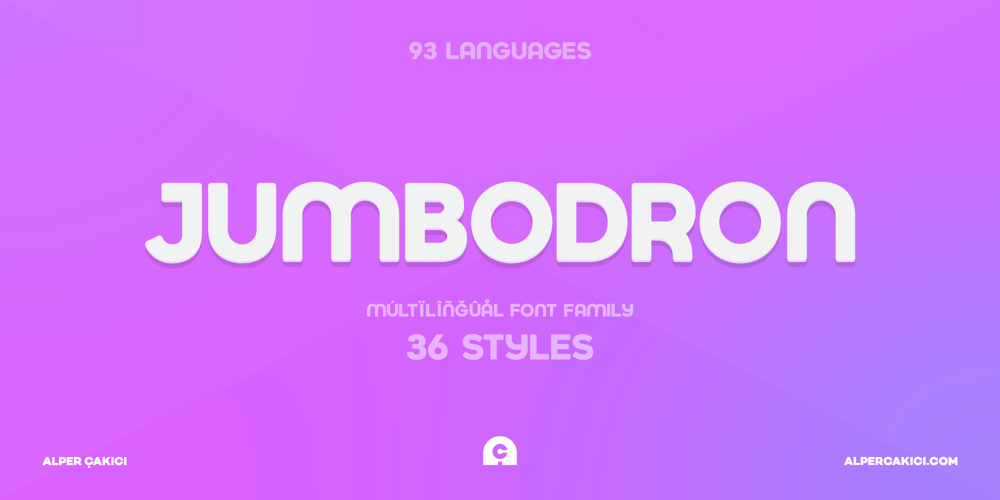
Jumbodron
Jumbodron font
Jumbodron Font Family was designed by Alper Çakıcı and published by Umka Type. Jumbodron contains 36 styles and family package options. Jumbodron – A Display Font : Jumbodron is a carefully crafted display font. It has Extended Latin and Cyrillic characters. It created for poster, web, brand and social media designs.It supports 91 Languages: Belarusian, Russian, Afrikaans, Albanian, Asu, Basque, Bemba, Bena, Breton, Catalan, Chiga, Colognian, Cornish, Croatian, Czech, Danish, Dutch, Embu, English, Esperanto, Estonian, Faroese, Filipino, Finnish, French, Friulian, Galician, German, Gusii, Hungarian, Indonesian, Irish, Italian, Kabuverdianu, Kalenjin, Kamba, Kikuyu, Kinyarwanda, Latvian, Lithuanian, Lower Sorbian, Luo, Luxembourgish, Luyia, Machame, Makhuwa-Meetto, Makonde, Malagasy, Maltese, Manx, Meru, Morisyen, North Ndebele, Norwegian Bokmål, Norwegian Nynorsk, Nyankole, Oromo, Polish, Portuguese, Quechua, Romanian, Romansh, Rombo, Rundi, Rwa, Samburu, Sango, Sangu, Scottish Gaelic, Sena, Serbian, Shambala, Shona, Slovak, Soga, Somali, Spanish, Swahili, Swedish, Swiss German, Taita, Teso, Turkish, Upper Sorbian, Uzbek (Latin), Volapük, Vunjo, Walser, Welsh, Western Frisian, Zulu